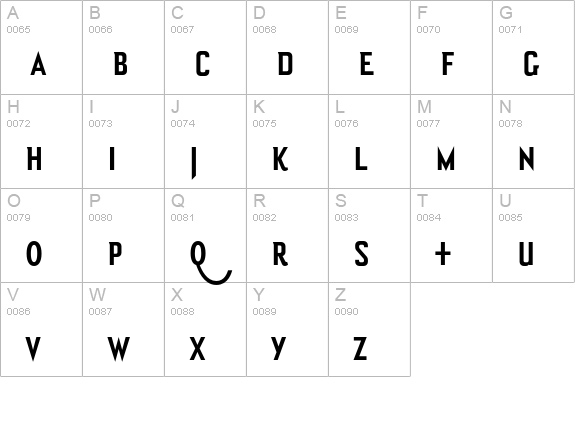
Bourgeois BoldCondAlt Font Details
Bourgeois BoldCondAlt font exudes sophistication and elegance with its sleek and modern design. This versatile typeface is perfect for creating eye-catching headlines, logos, and branding materials. Its bold and condensed style makes a strong statement while maintaining a sense of refinement. What sets Bourgeois BoldCondAlt apart is its unique blend of classic and contemporary elements, making it a timeless choice for various design projects. Whether used in print or digital media, this font commands attention and conveys a sense of luxury. Best of all, Bourgeois BoldCondAlt is available for free download at FontsMarket.com. Don't miss out on the opportunity to enhance your designs with this exquisite font that effortlessly combines style and sophistication.